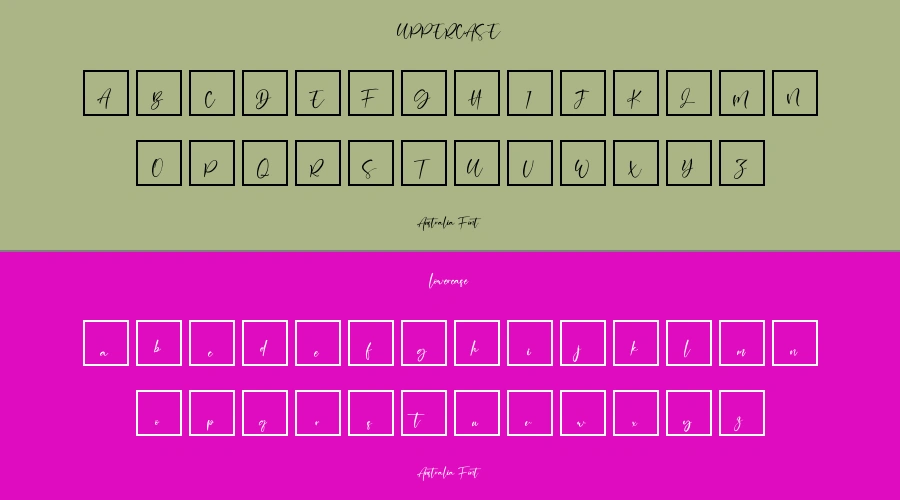
About Australia Font
When typographic excellence matters most, Australia Font delivers through its thoughtful blend of decorative elements and functionality. Specially crafted for magazine layout, it offers the durability and user trust required for sophisticated design work. Every detail serves a purpose.
The character set showcases thoughtful details like playful elements alongside functional historical alternates. This proves especially valuable in corporate communications, where versatility directly influences results. Particular attention was paid to character width and standards alignment during development.